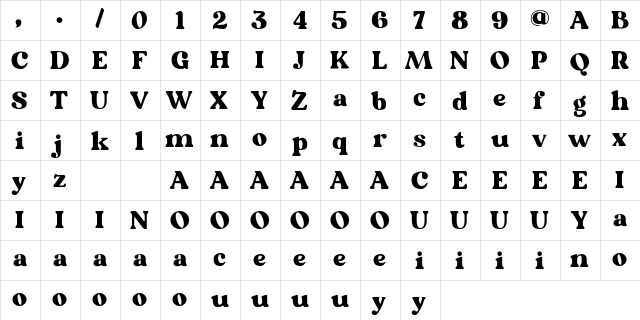
Design Context for Vikendi Typeface
Vikendi is a composed and adaptable typeface that performs quietly and consistently across a wide range of design contexts.
Pro Tip: Pair Vikendi with a font of contrasting weight or personality to build a more expressive typographic hierarchy.